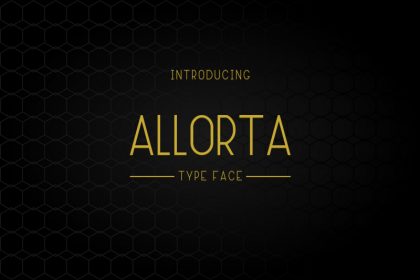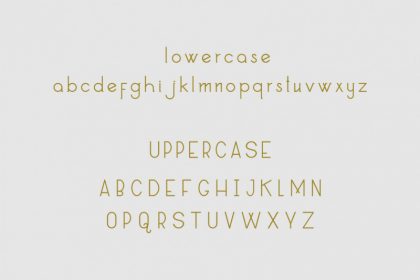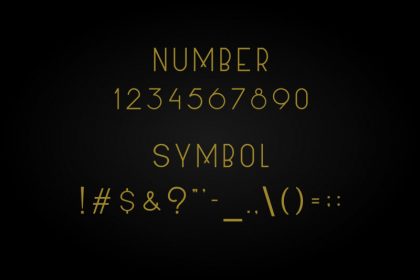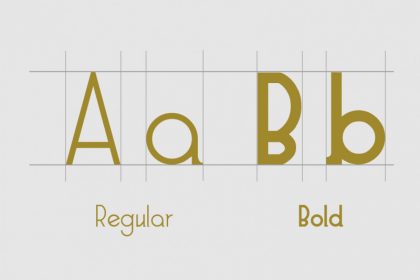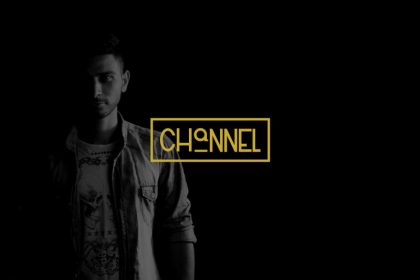
Hi Everyone! She is back! Allorta Sans Serif Font. This is a new modern minimalist yet elegant sans display style font. This font will Work on PC & Mac with Simple installations. Accessible in the Adobe Illustrator, Adobe Photoshop, Adobe InDesign, even work on Microsoft Word. It’s also PUA Encoded Characters – Fully accessible without additional design software.